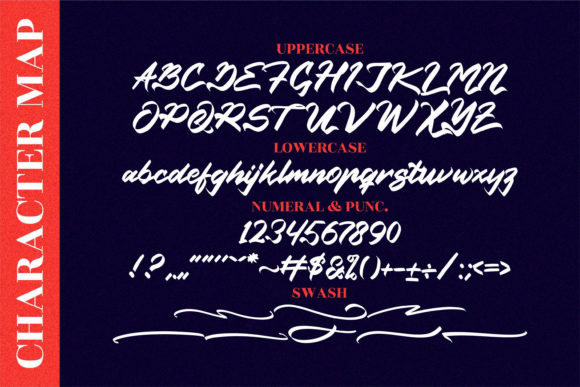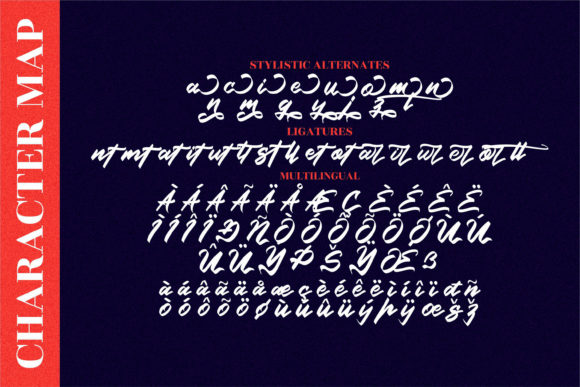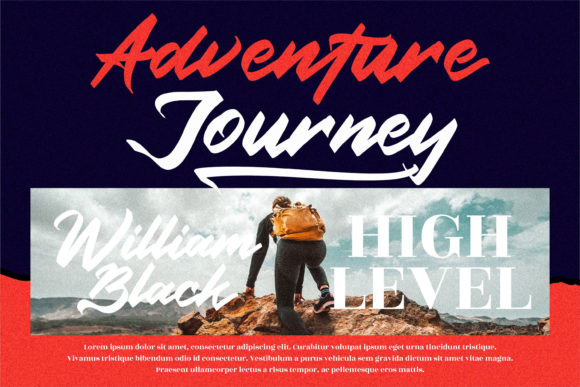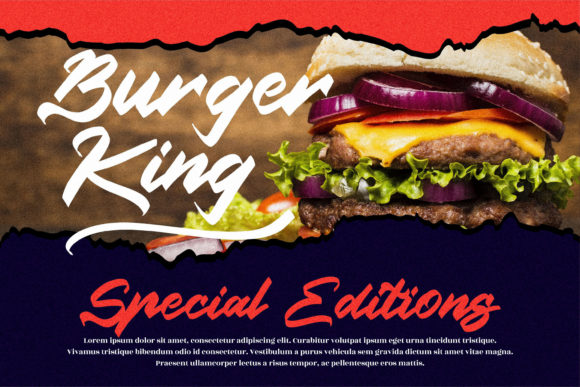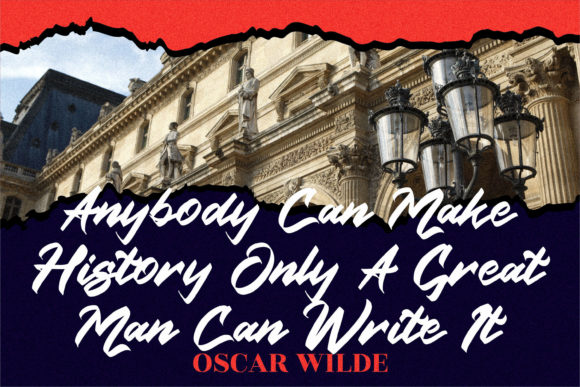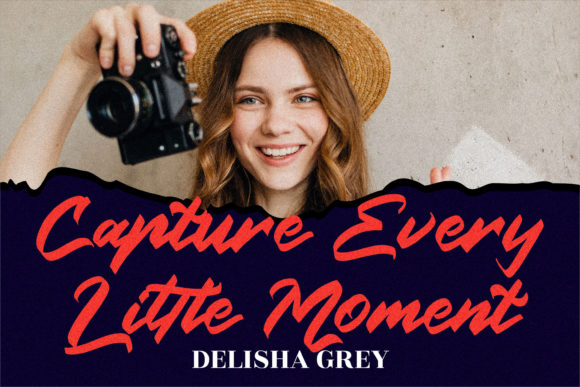
Introduction to Indonesia Ceriwise Font Font
Fonts play a crucial role in design, and the Indonesia Ceriwise Font font is a typeface that brings both character and versatility to any project. Whether you’re working on a branding project, a website, or a print design, the Indonesia Ceriwise Font font offers a unique style that can elevate your work.
Indonesia Ceriwise is a readable, down to earth, and bold handwritten font, crafted to give your headlines and logotype projects a cool touch.
This font reads as strong, confident, and dynamic and can add tons of nostalgic character to your designs Indonesia Ceriwise is PUA encoded which means you can access all of the glyphs and swashes with ease.
Key Features of Indonesia Ceriwise Font Font
Why Choose Indonesia Ceriwise Font Font?
The Indonesia Ceriwise Font font is more than just a typeface – it’s a design tool that helps you communicate your message with style and clarity. Its unique character set and versatile design make it suitable for a wide range of applications, from elegant invitations to bold headlines.
With its carefully crafted letterforms and balanced proportions, the Indonesia Ceriwise Font font ensures readability and visual appeal across all mediums.
What makes Indonesia Ceriwise Font font special?
The Indonesia Ceriwise Font font stands out with its unique design, exceptional readability, and versatility across various design applications.